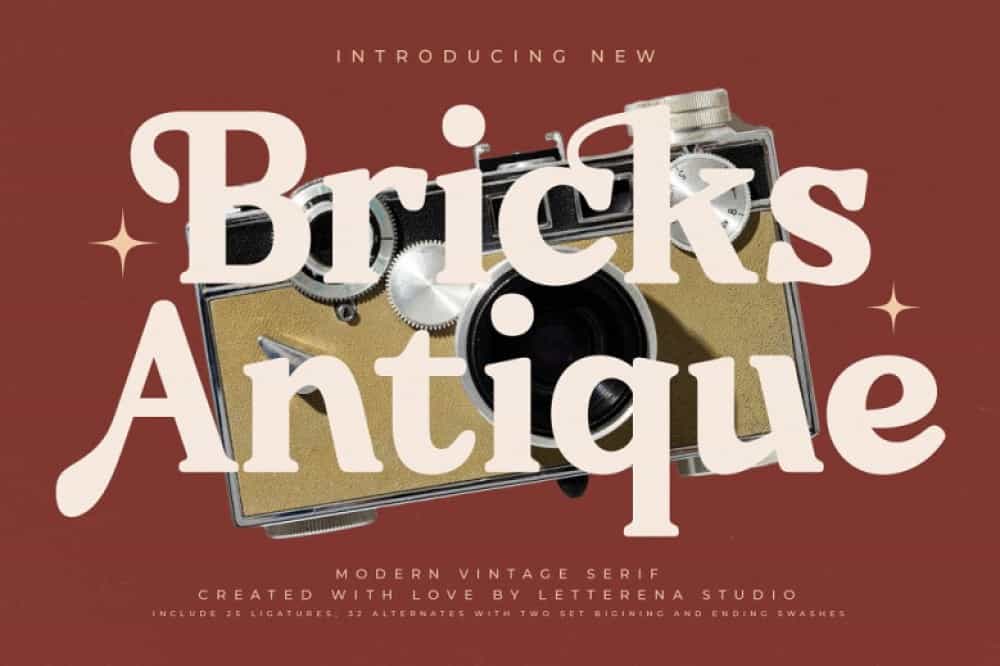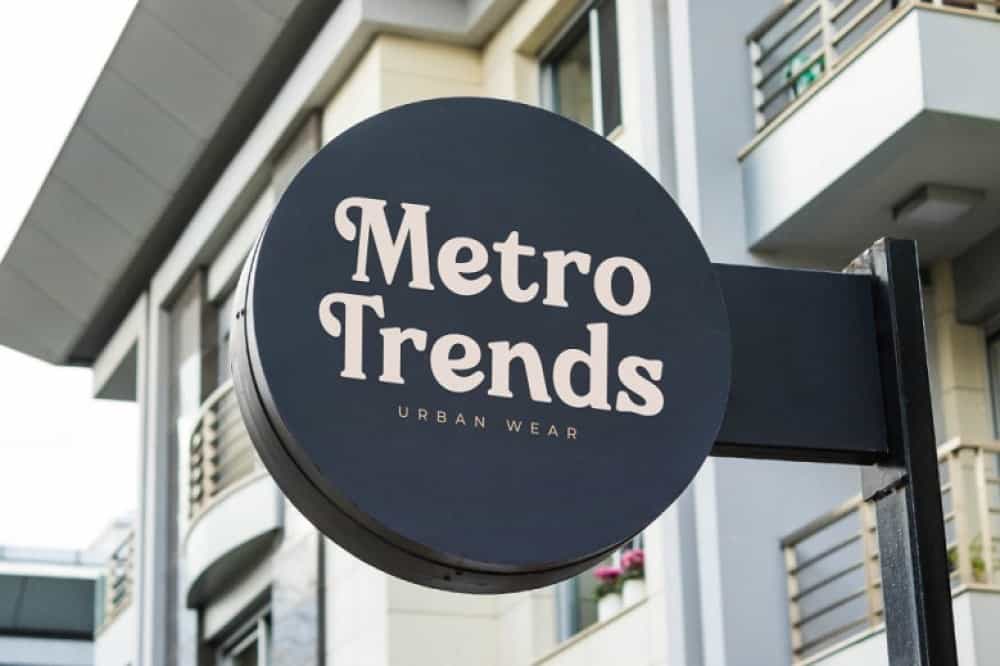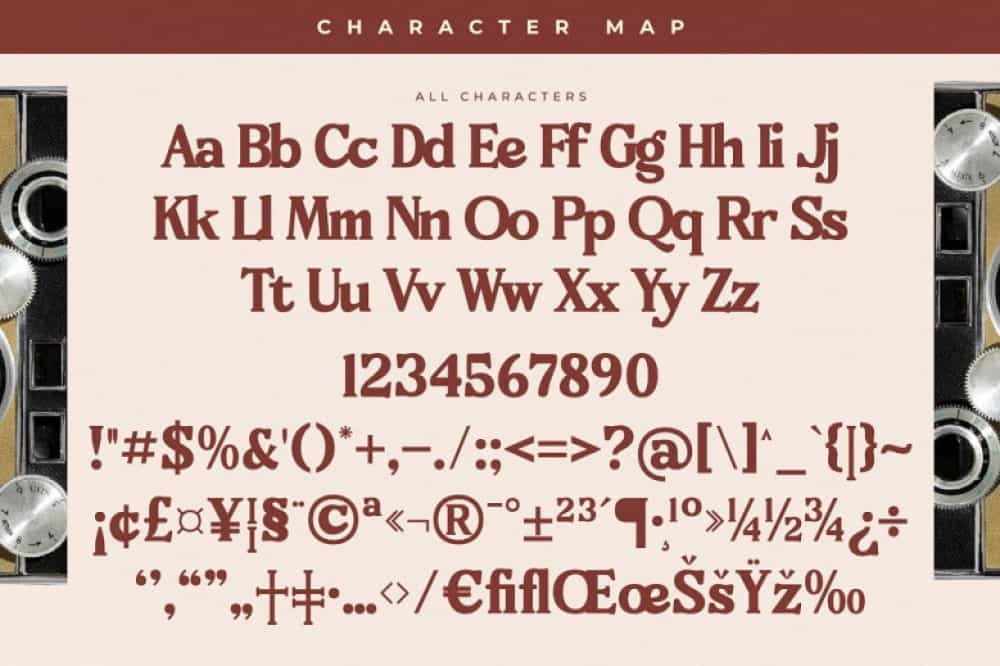
Bricks Antique is a luxury serif font, suitable for any projects such as: logos, branding, home-ware, product packaging, mugs, quotes, posters, bags, t-shirts, book covers, name cards, invitation & greeting cards, labels, photography, watermarking, events and every other luxury and pretty project that requires a touch of the Luxury Serif.